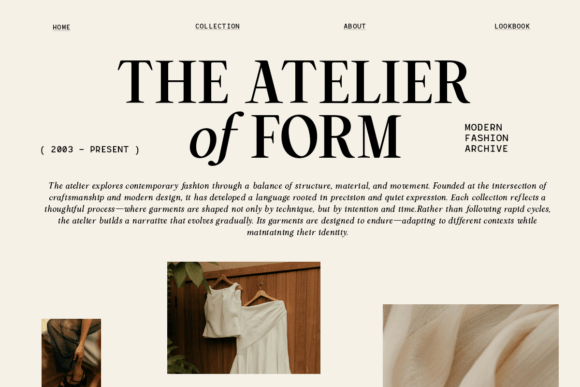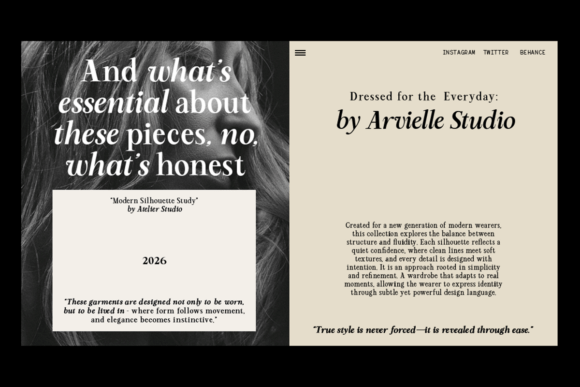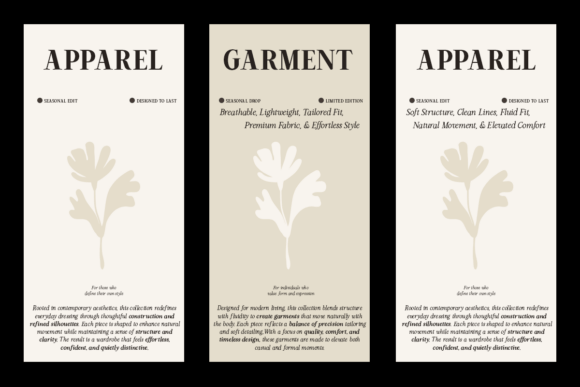
Introduction to Rcl Arviel Font
RCL Arviel is a modern serif typeface crafted to create strong visual impact through elegant contrast and expressive form.
Defined by its sculpted serifs, dynamic curves, and editorial character, Arviel balances classical sophistication with contemporary boldness With 18 weights available, this serif family offers flexibility for both dramatic headlines and refined layouts.